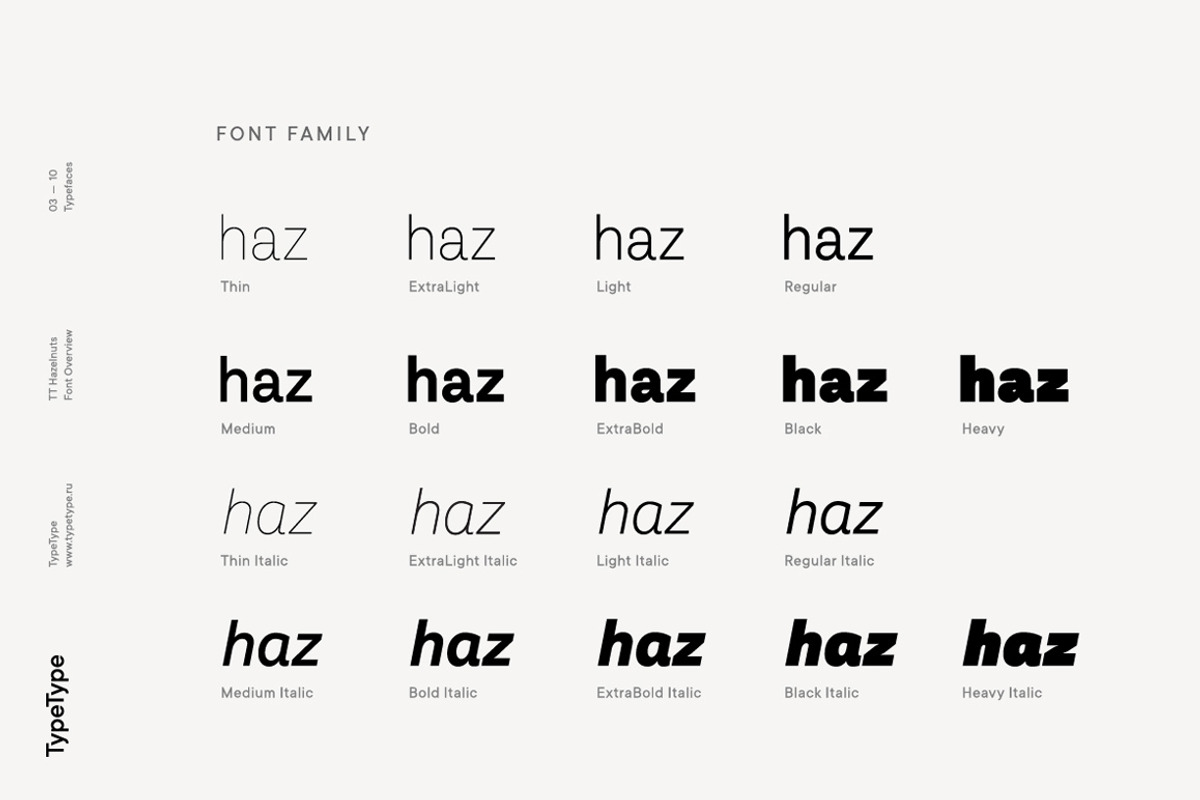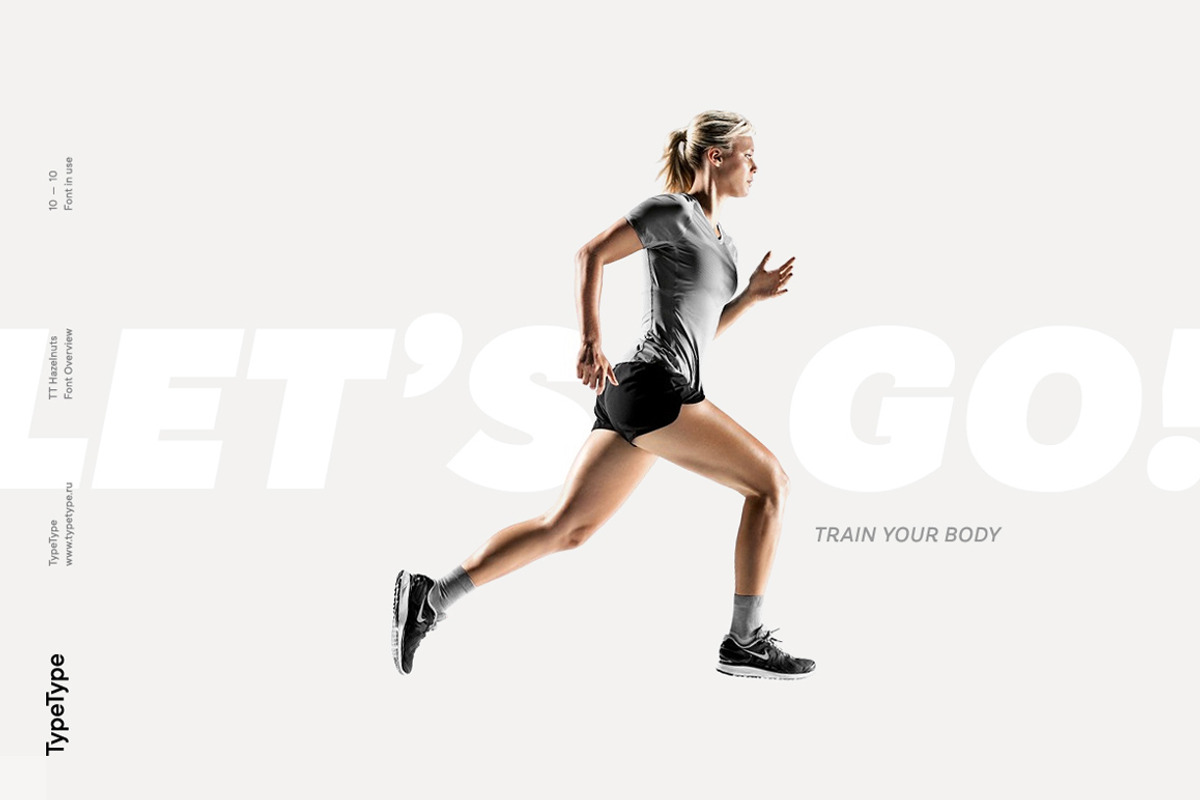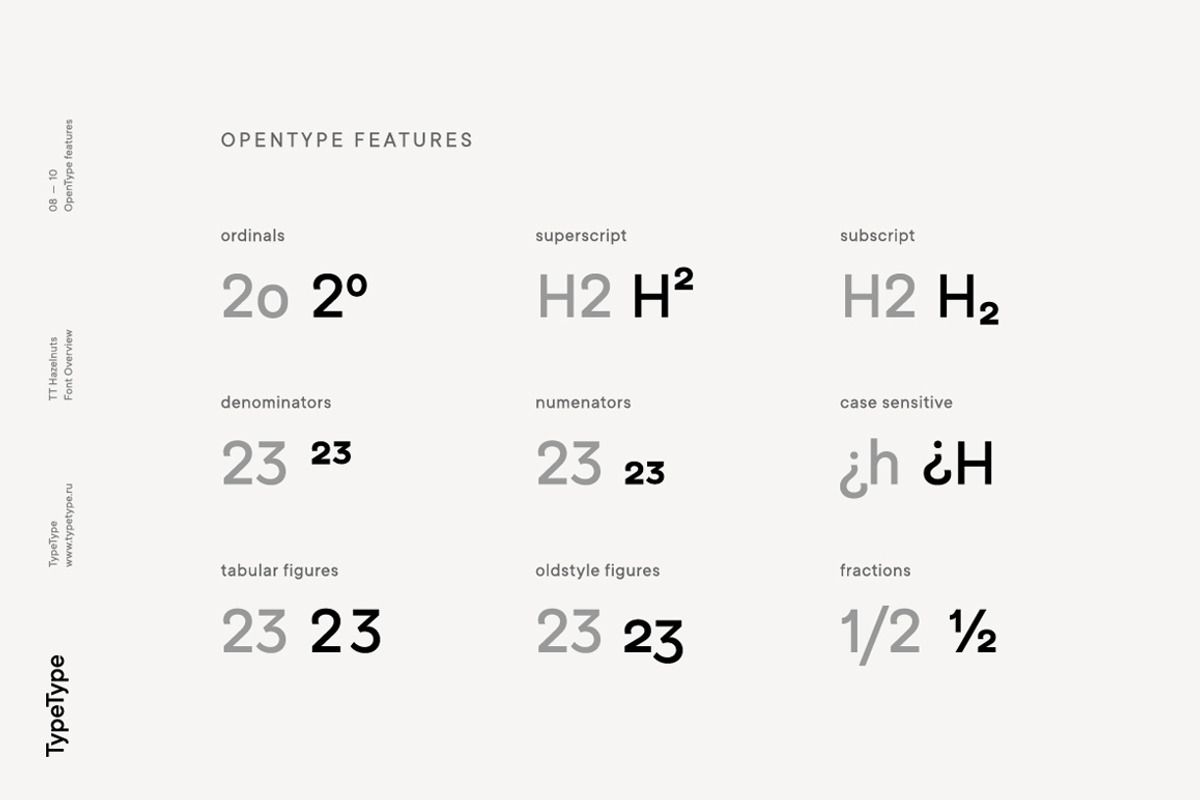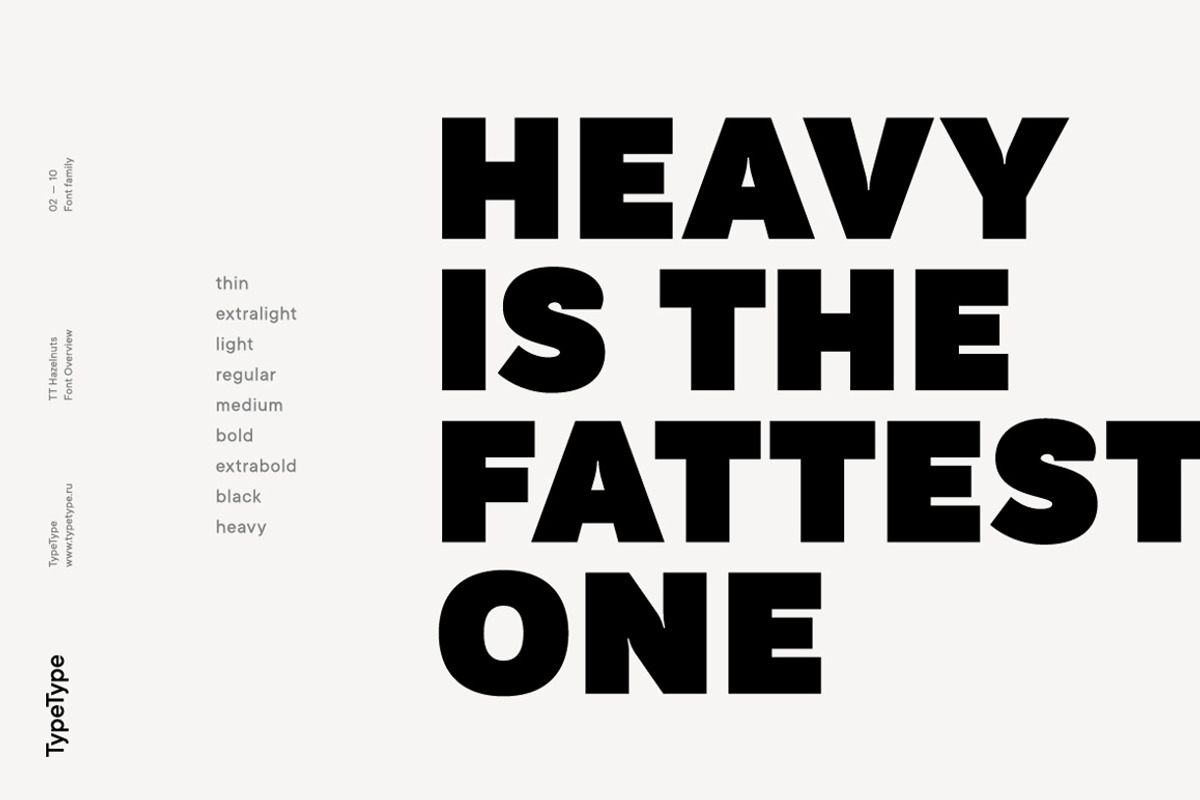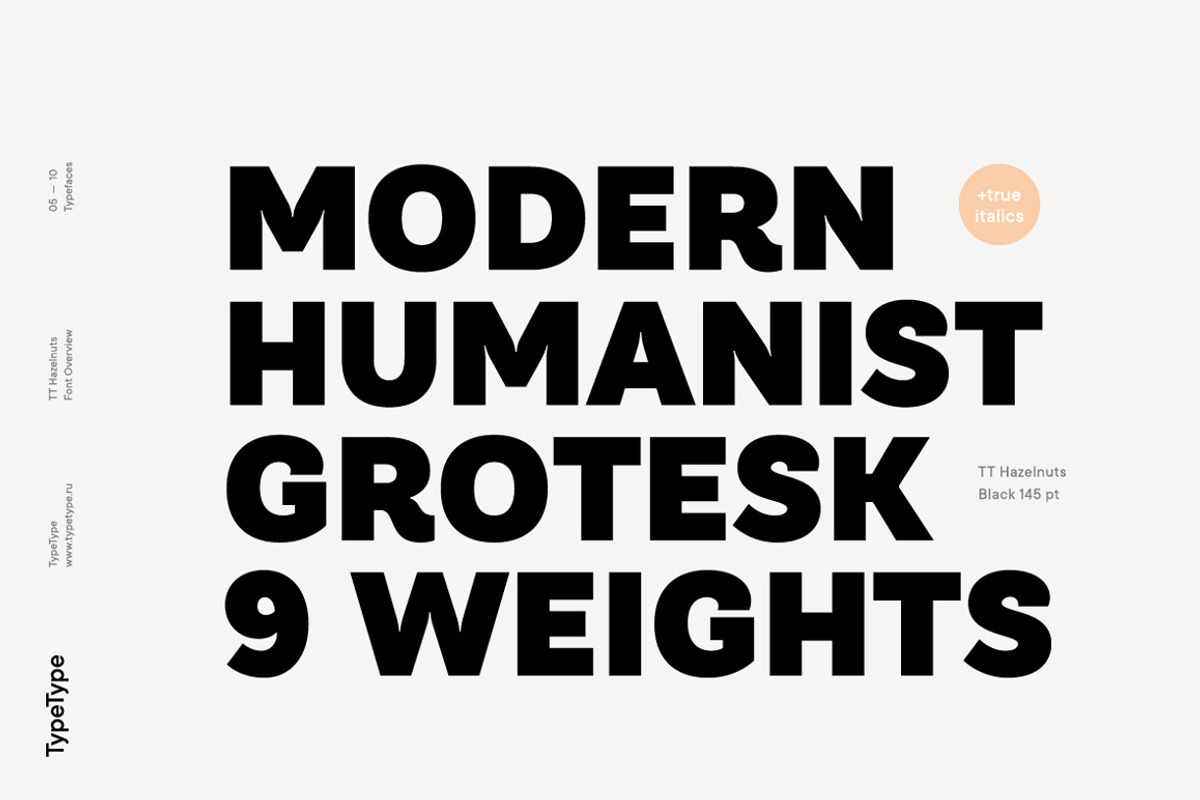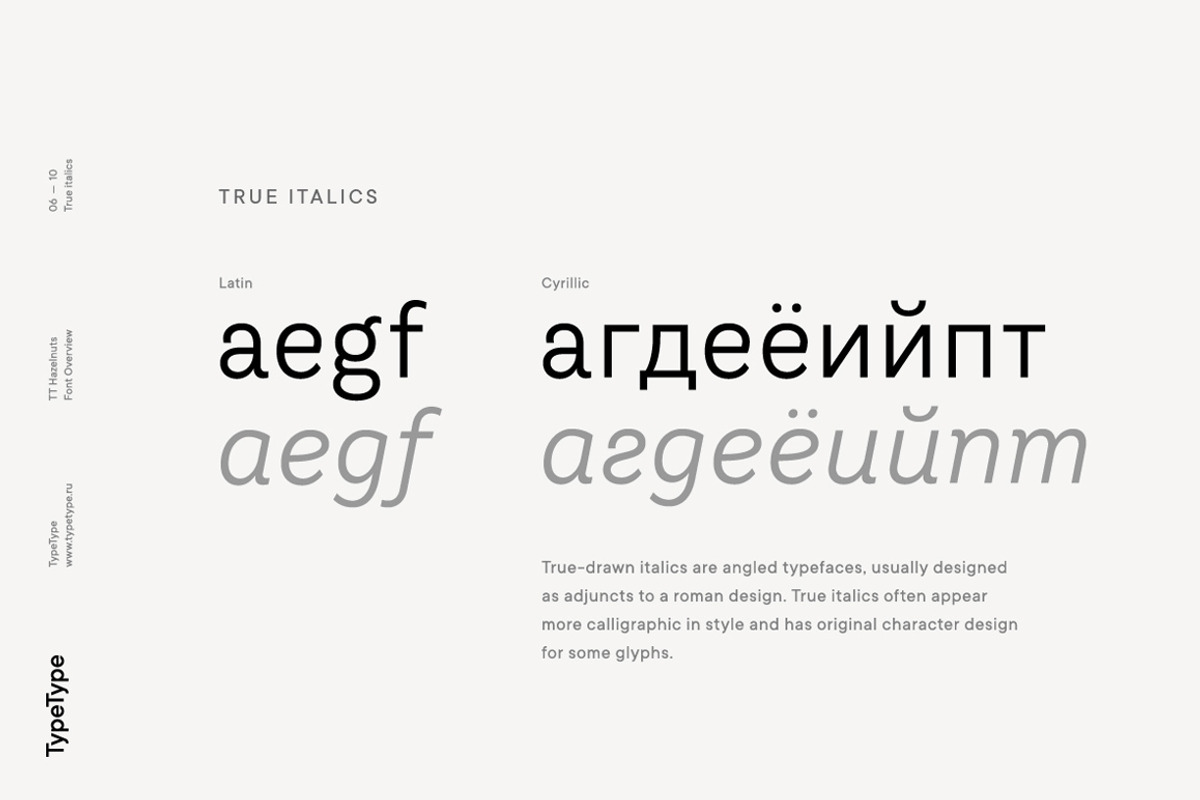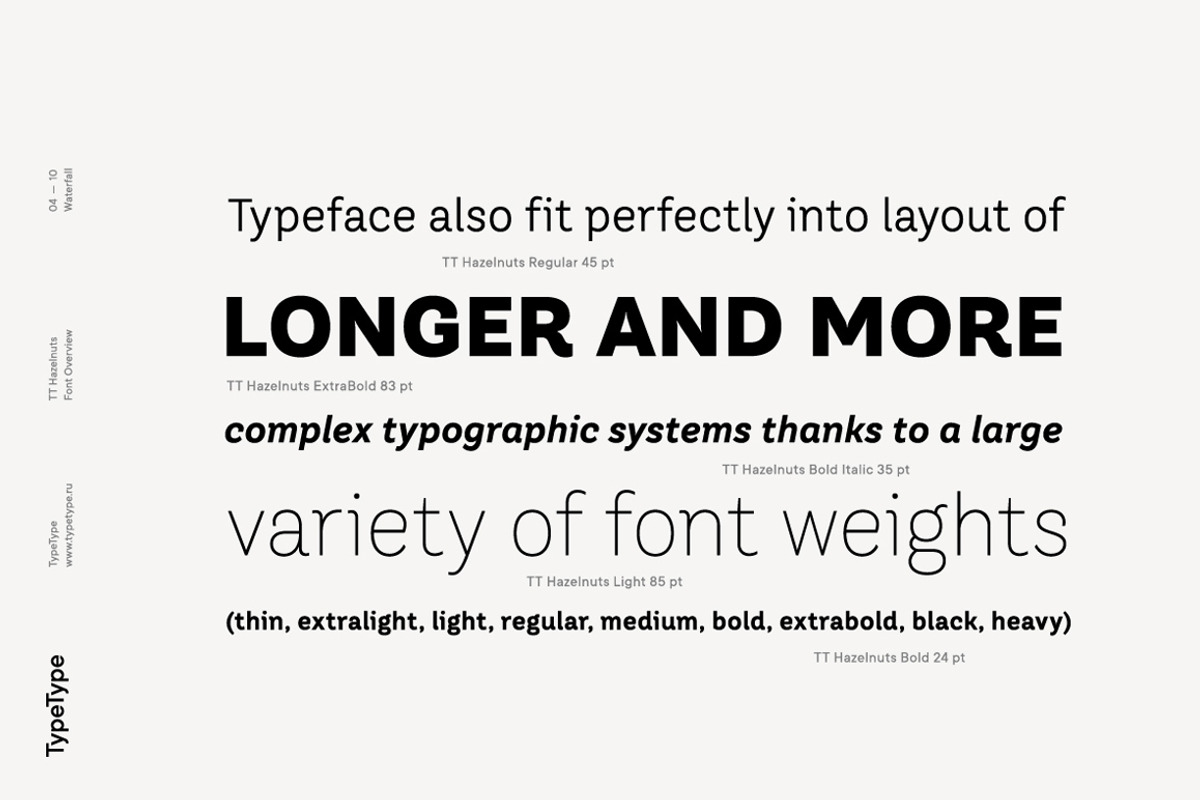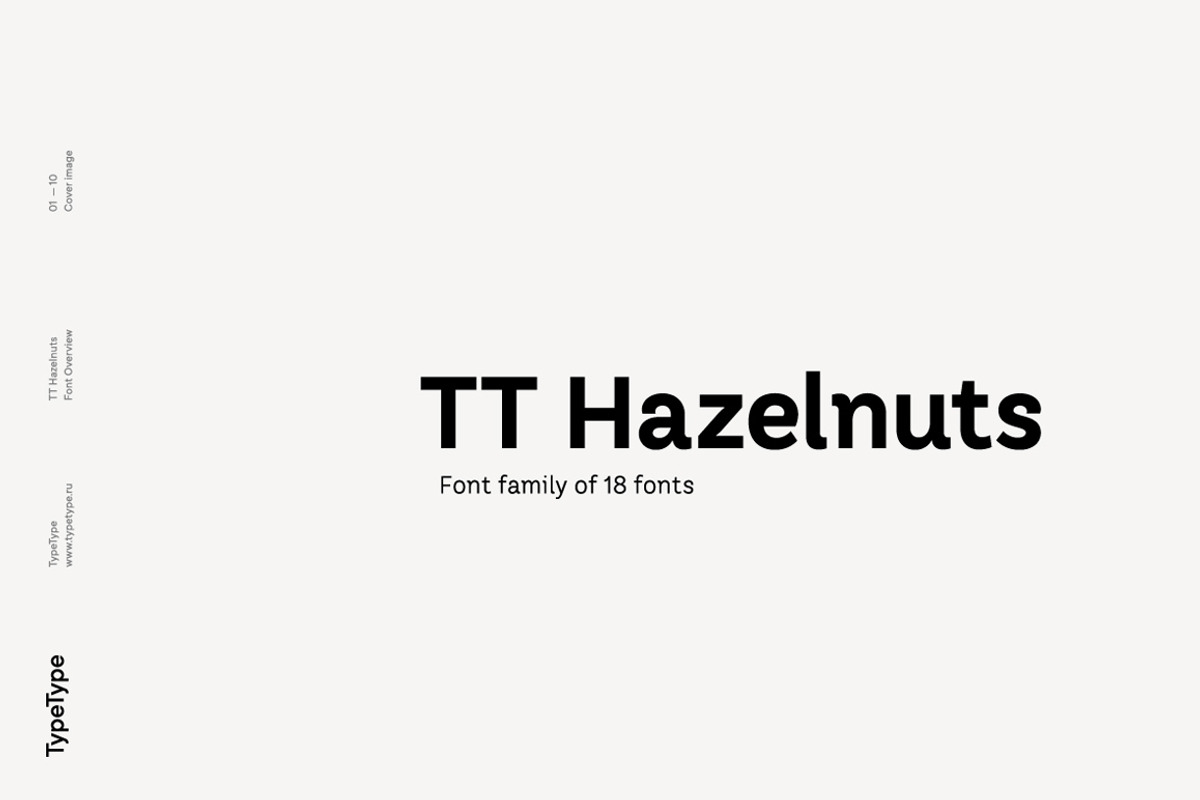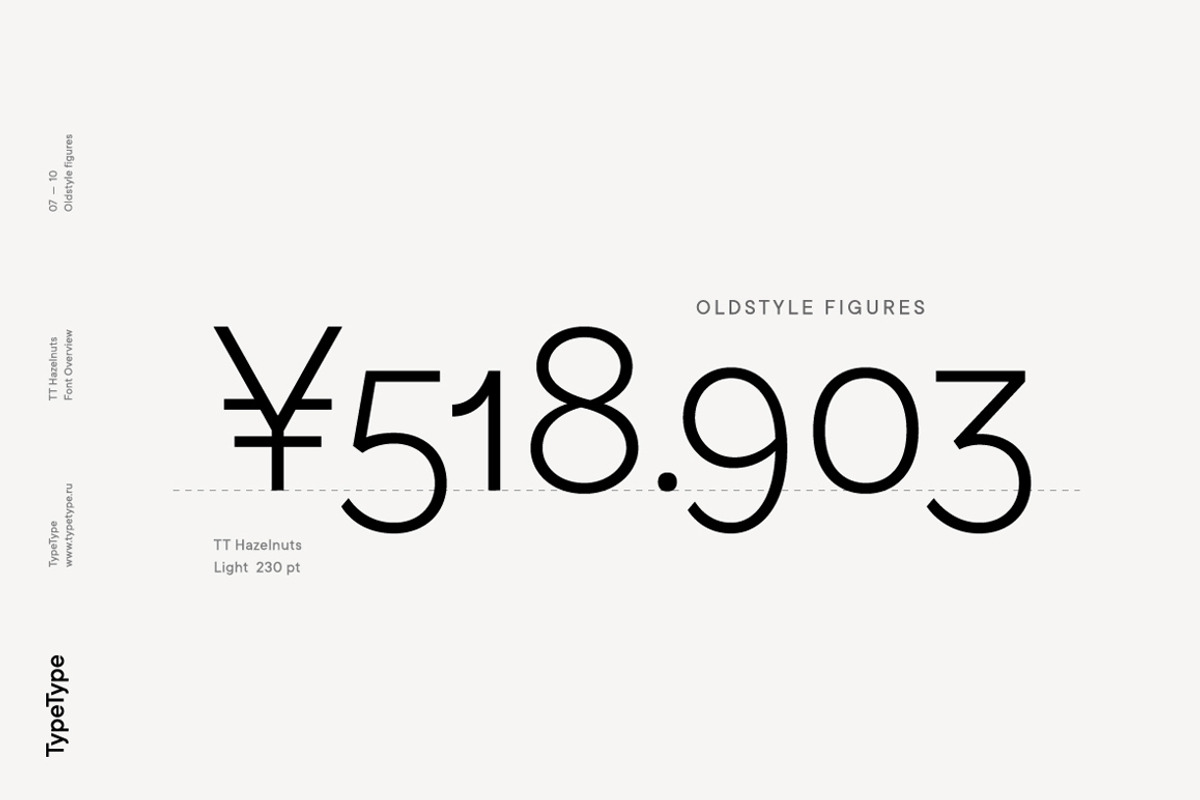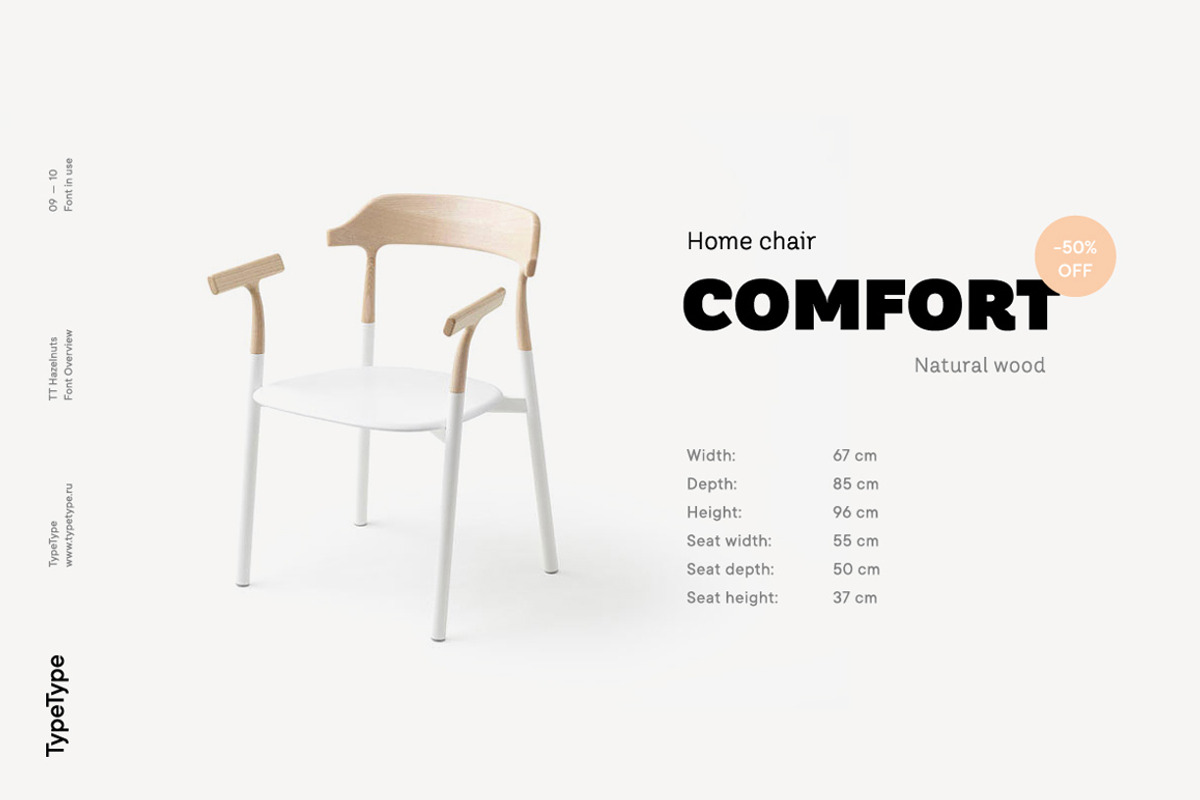
TT Hazelnuts
- 9 weights & 9 italics
- 488+ glyphs for each typeface
- Supports 160 languages (incl. Cyrillic)*
- OpenType features**
TT Hazelnuts is a display sans-serif font family containing a set of elegant and delicate decorative elements. Initially the family was designed for highly specialized areas, but we've decided to extend the number of typefaces and to make the family more universal. Despite its geometric essence, TT Hazelnuts reflects a touch of human hand—you can take a calligraphic tool and, by turning it, draw pretty much the whole font.
TT Hazelnuts—delicate and elegant grotesk with a touch of human hand
TT Hazelnuts font family is perfect for small text arrays, for instance, for fashion or advertising industries, and will also fit perfectly into layout of longer and more complex typographic systems thanks to a large variety of font weights (Thin, ExtraLight, Light, Regular, Medium, Bold, ExtraBold, Black, Heavy) and its real italics. It has already become a good tradition to include broad support of OT features into our new fonts. TT Hazelnuts is not an exception, it uses a large number of useful features: ordn, sinf, sups, numr, dnom, tnum, onum, frac, case.